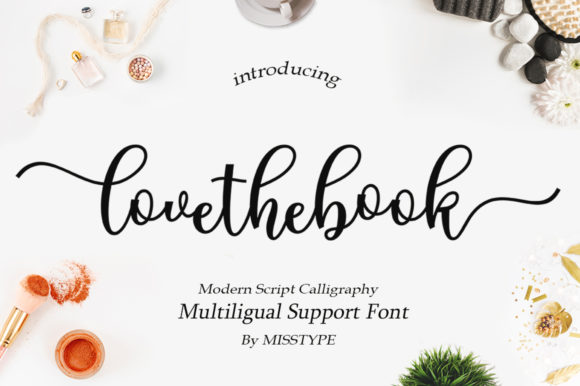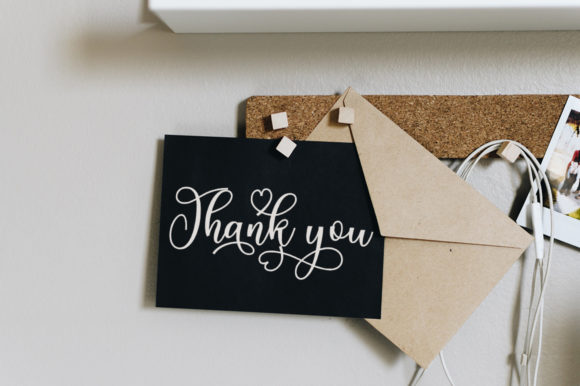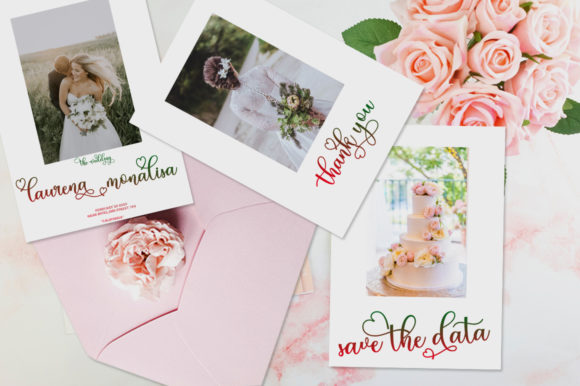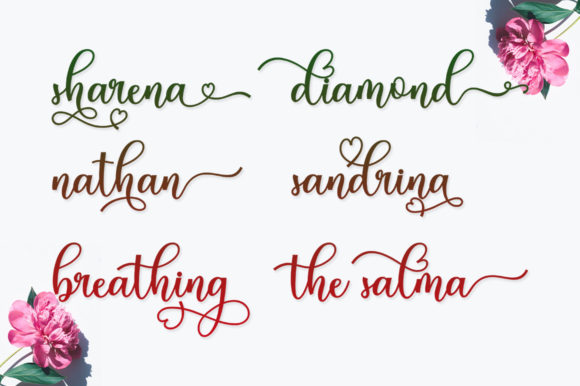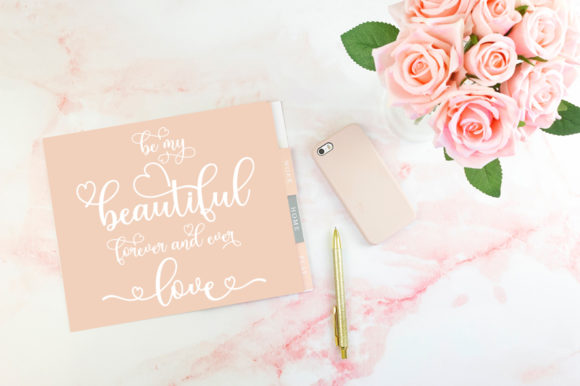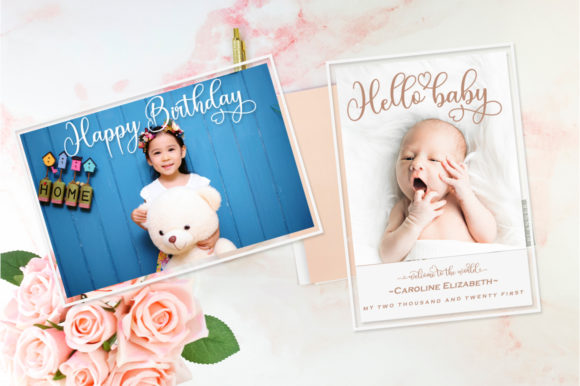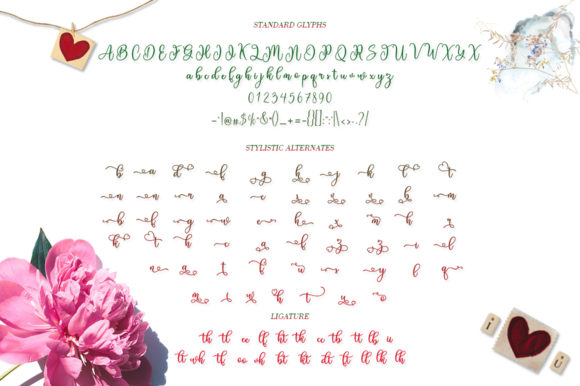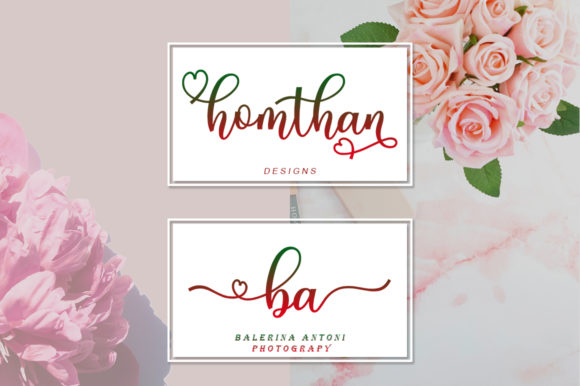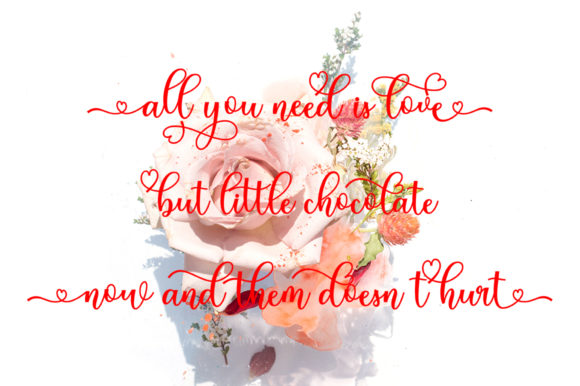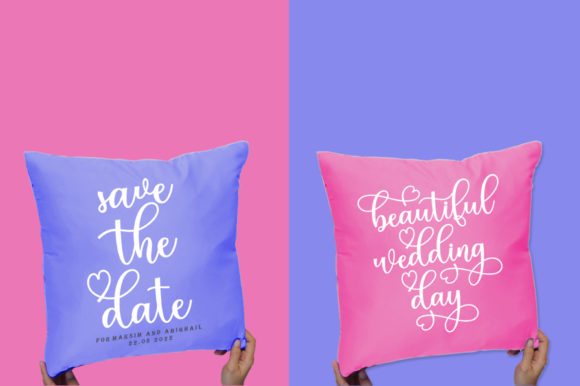
HomeScript FontsLovethebook Font Script Fonts Lovethebook Font FacebookXPinterestWhatsApp Lovethebook Font Poster 2 Lovethebook Font Poster 3 Lovethebook Font Poster 4 Lovethebook Font Poster 5 Lovethebook Font Poster 6 Lovethebook Font Poster 7 Lovethebook Font Poster 8 Lovethebook Font Poster 9 Lovethebook Font Poster 10 About Lovethebook Font Lovethebook features beautiful hearts in an organic way. Get inspired by its romantic charm! DOWNLOAD NOW People also explored The Brandy Font Handyka Font Thanks Font Taro Squad Font Olive Font Balicot Sweet Font Dark Script Font Inspiration Font Brave Heart Font 274 0 TagsLovethebook Font Previous articleDungeon FontNext articleFallefi Font LEAVE A REPLY Cancel reply Comment: Please enter your comment! Name:* Please enter your name here Email:* You have entered an incorrect email address! Please enter your email address here Website: Save my name, email, and website in this browser for the next time I comment. Personal Use Free Satori Personal Use Free Read more about this font Arc Personal Use Free Read more about this font Madison Script Personal Use Free Read more about this font Foolish Hand Personal Use Free Read more about this font BLOG How to Install and Use Fonts on Windows, macOS, and Web Projects How to Install and Use Fonts on Windows, macOS, and Web Projects Fonts are a crucial part of design and branding. Whether you’re designing a... Free Fonts Risk: Why Free Fonts Can Be Dangerous for Designers Where to Buy American Fonts Online in 2024 Free vs Paid Fonts: Why Investing in Premium Fonts Is Worth It